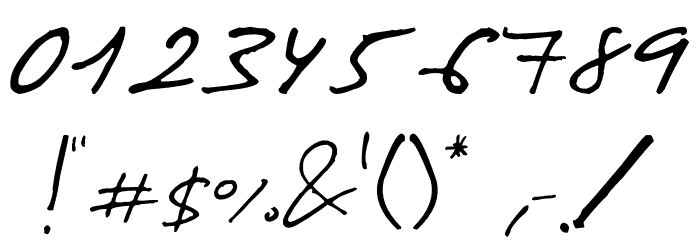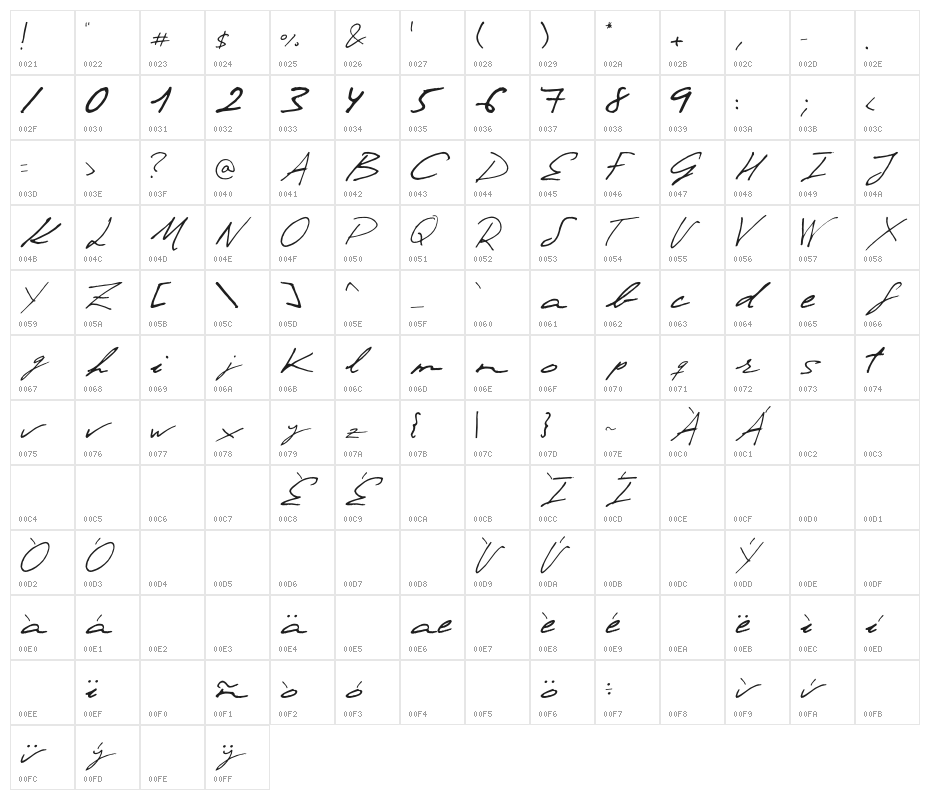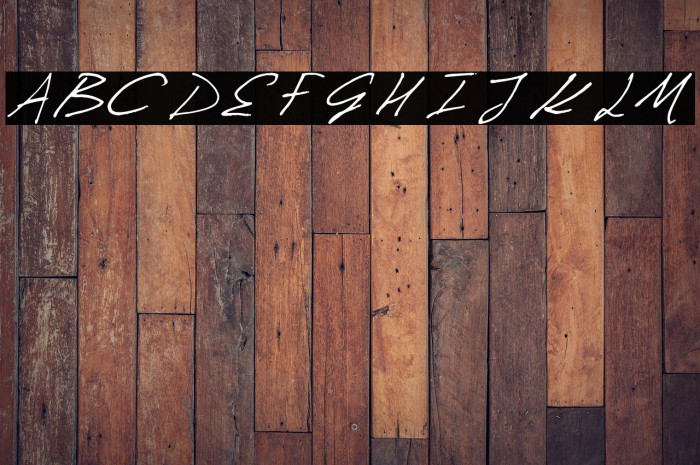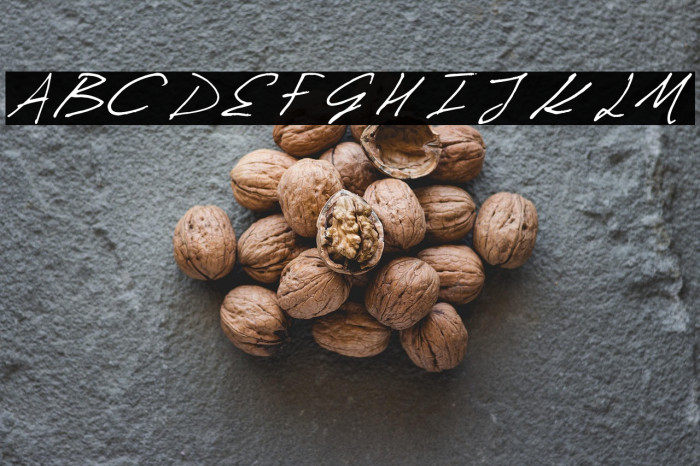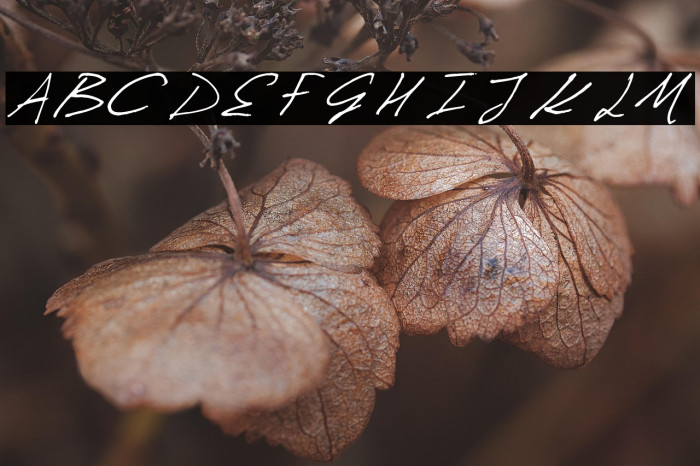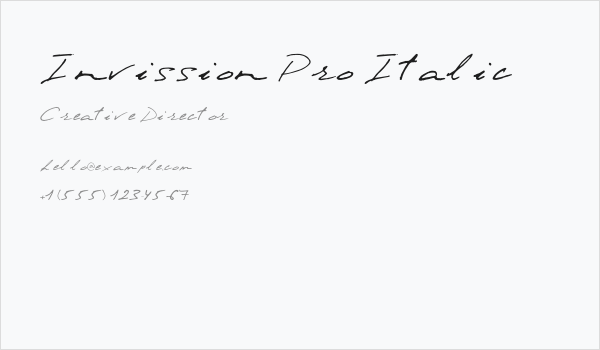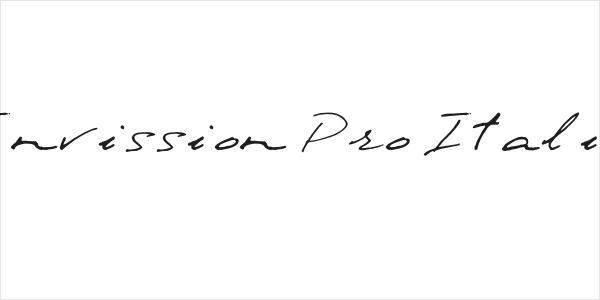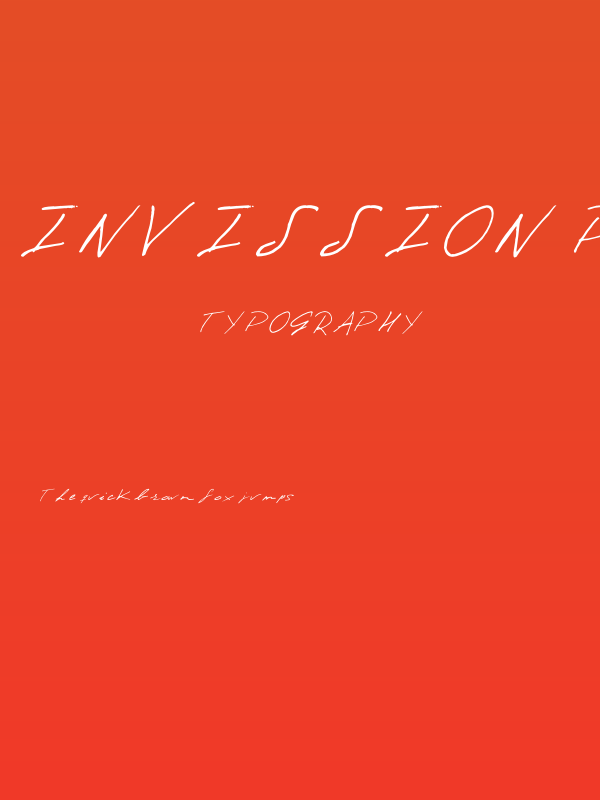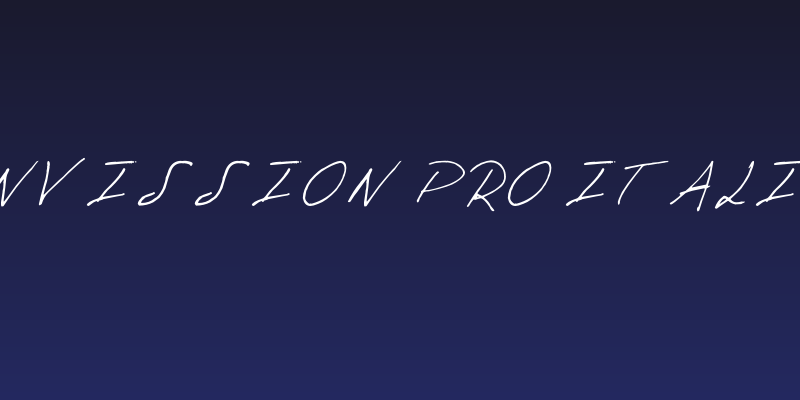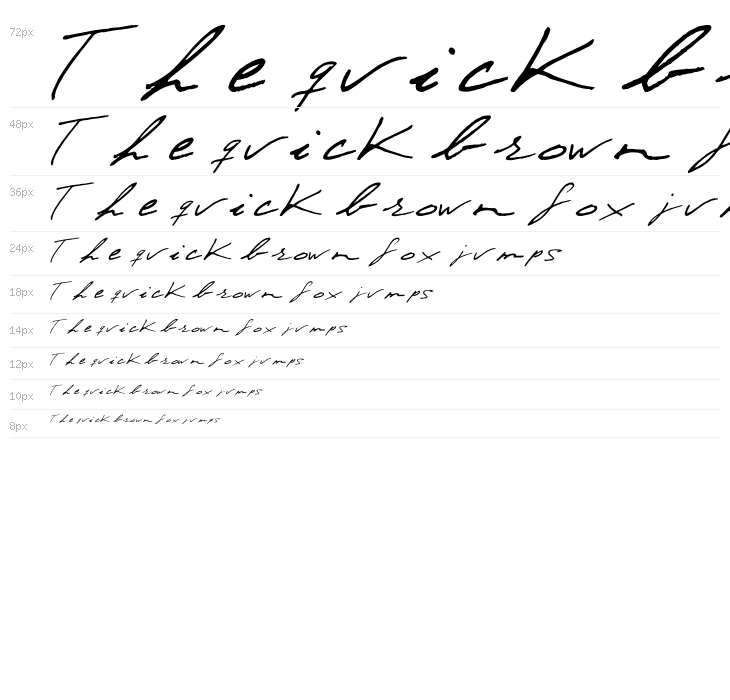
Invission Pro Italic Font
Invission Pro Italic Description
This font exudes a dynamic and fluid style, characterized by its cursive, handwritten appearance. The letters are elegantly slanted, giving a sense of motion and grace. The uppercase and lowercase letters maintain a consistent flow, with smooth curves and a slightly irregular baseline that adds to its natural, personal touch. The numerals are bold and clear, complementing the overall script style. Special characters are thoughtfully designed to match the fluidity of the alphabet, ensuring a cohesive look throughout. This font is ideal for projects that require a personal, artistic touch, such as invitations, greeting cards, or branding materials.